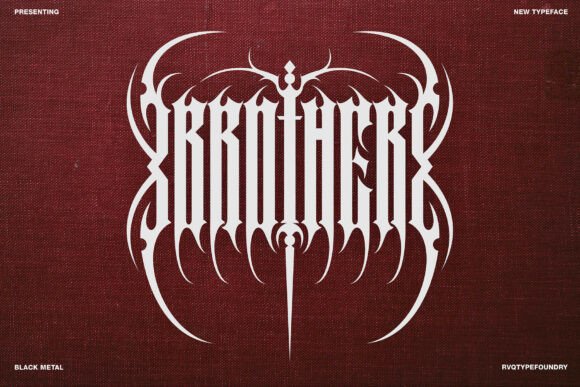
Unleash Your Creativity with Brother Blackmetal Font
Have you ever been in the middle of a design project, and suddenly, you’re struck by a creative block? You’re not alone! I recall working on a project for a heavy metal band’s merchandise, and I was struggling to find the perfect font that conveyed their intense and powerful vibe. That’s when I stumbled upon the Brother Blackmetal font, and it completely transformed my design. In this article, we’ll dive into the world of Brother Blackmetal, exploring its features, uses, and tips for getting the most out of this incredible font.
- 💥 **Impactful Design**: The Brother Blackmetal font is specifically designed for high-impact, extreme creative expressions. Its razor-sharp terminals and symmetrical blade-like extensions make it perfect for band logos, extreme sports apparel, and horror-themed merchandise.
- ✅ **Easy to Use**: The font is surprisingly easy to work with, even for those who are new to design. Its vertical structure and classic metal logo inspiration make it a breeze to pair with high-contrast textures.
- 🎨 **Versatile**: Brother Blackmetal is more than just a font – it’s a visual statement of power and aggression. You can use it for a wide range of projects, from typographic designs to packaging and posters.
- 🤔 **Limited Use Cases**: While Brother Blackmetal is incredibly versatile, it’s not suitable for all design projects. For example, it might not be the best choice for elegant wedding invitations or professional business documents.
- ⚠️ **Overuse**: Be careful not to overuse the font’s dramatic features. Too much of a good thing can make your design look cluttered and overwhelming.
- Experiment with the font’s OpenType features, such as stylistic alternates and glyphs, to add visual interest to your design.
- Use the font’s built-in glyphs and stylistic alternates to create a unique and eye-catching design.
The Story Behind Brother Blackmetal
The Brother Blackmetal font was inspired by the raw energy and aggression of heavy metal music. Its designer, a metalhead and typography enthusiast, wanted to create a font that captured the essence of the genre. With its razor-sharp terminals and symmetrical blade-like extensions, Brother Blackmetal is a true reflection of the metal aesthetic.
| What is the best way to pair Brother Blackmetal with other design elements? | Brother Blackmetal looks best when paired with high-contrast textures like worn fabric or dark stone. Experiment with different textures and backgrounds to find the perfect combination for your design. |
| Is Brother Blackmetal suitable for digital use? | While Brother Blackmetal is designed for print, it can also be used for digital projects like social media graphics and website headers. Just be sure to test the font at different sizes and resolutions to ensure it looks great on screen. |
In conclusion, Brother Blackmetal is an incredible font that’s perfect for designers, crafters, and creative hobbyists looking to add a touch of metal-inspired edge to their projects. With its bold, aggressive aesthetic and versatile design, it’s sure to make a statement in any design. So why wait? Unleash your creativity with Brother Blackmetal and take your designs to the next level!